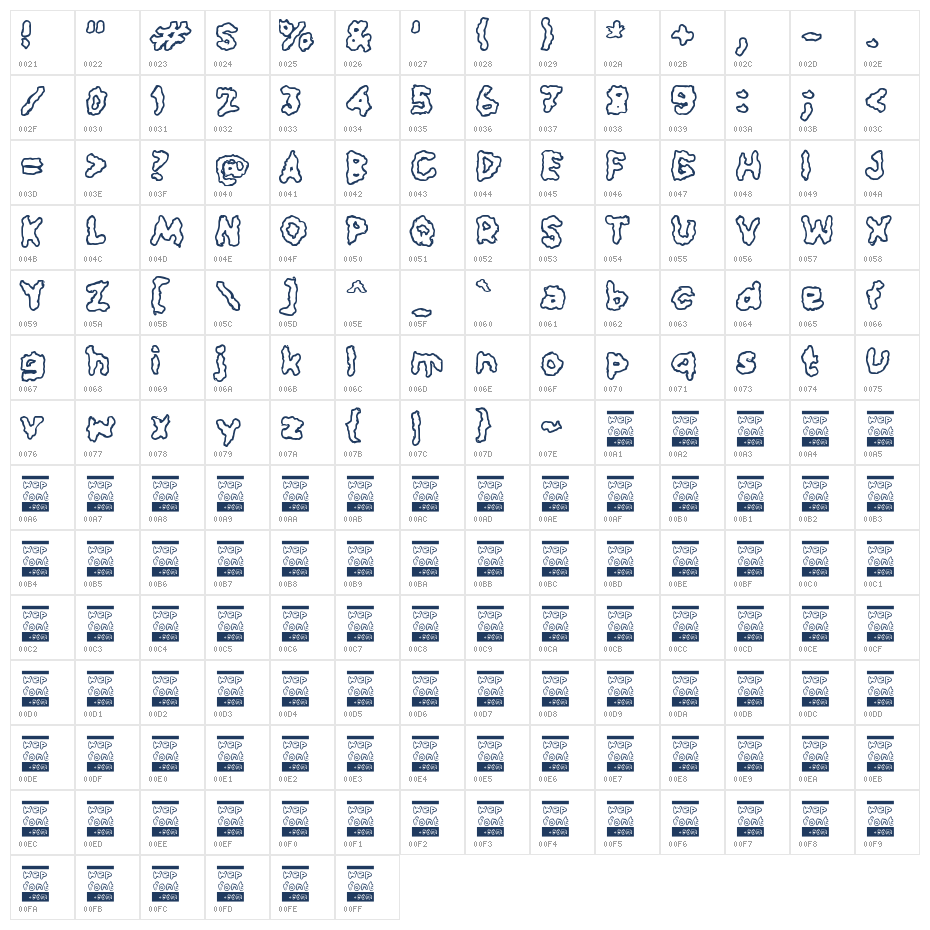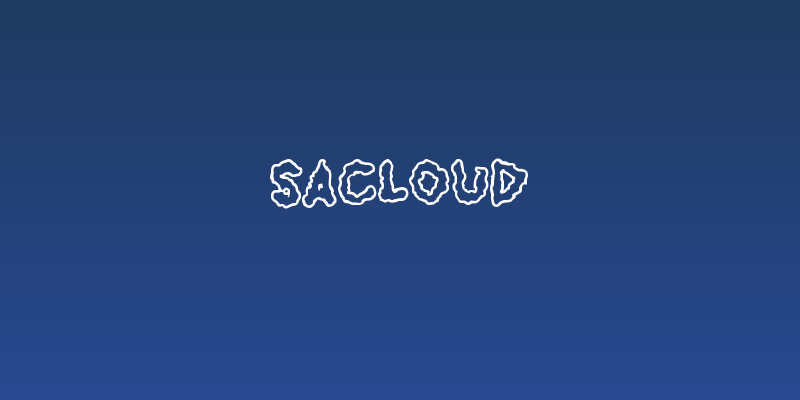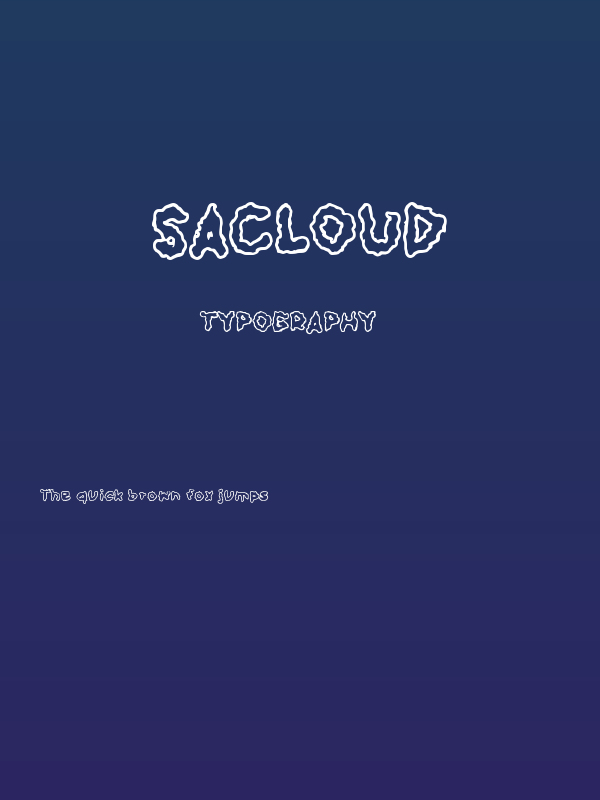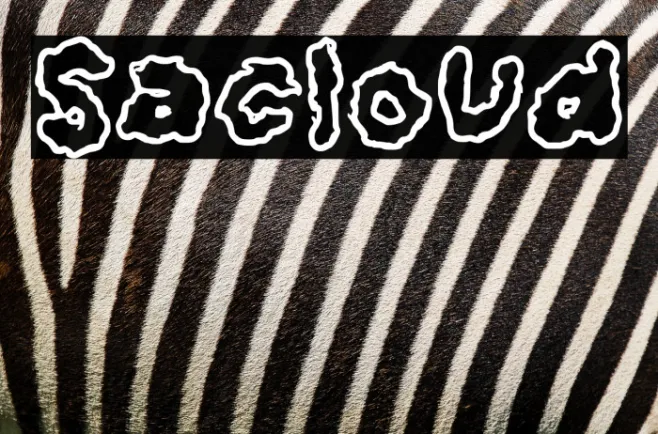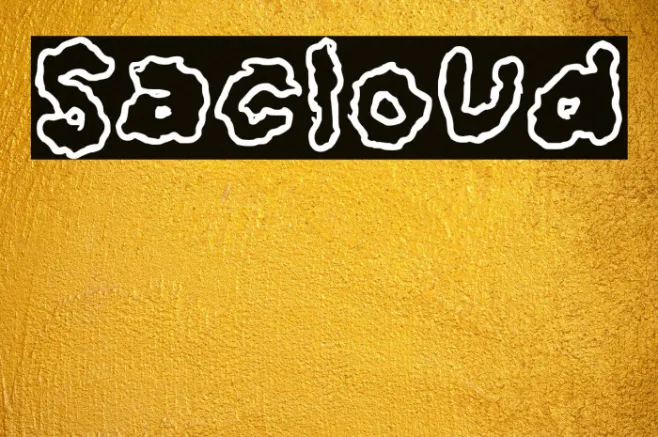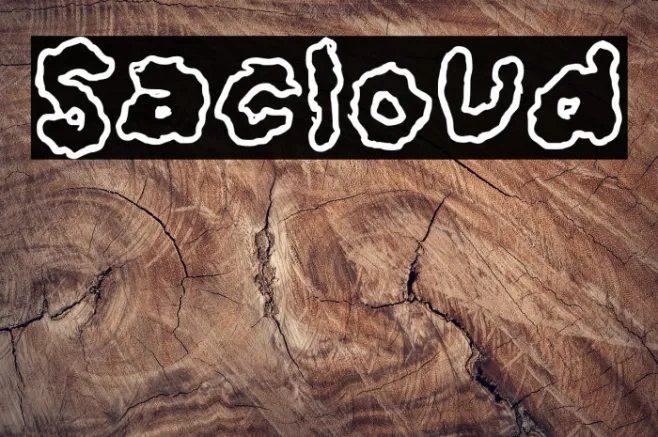
Sacloud Font
Sacloud Description
A playful, irregular, hand-drawn style font with a sketchy, organic appearance, featuring uneven lines and a casual, whimsical feel.
| Overall Style | Casual, Playful, Hand-drawn |
| Use Case | Headlines, Posters, Creative projects |